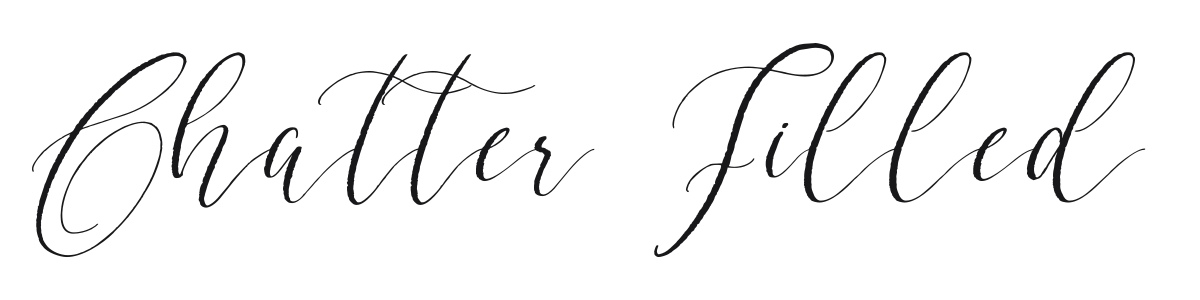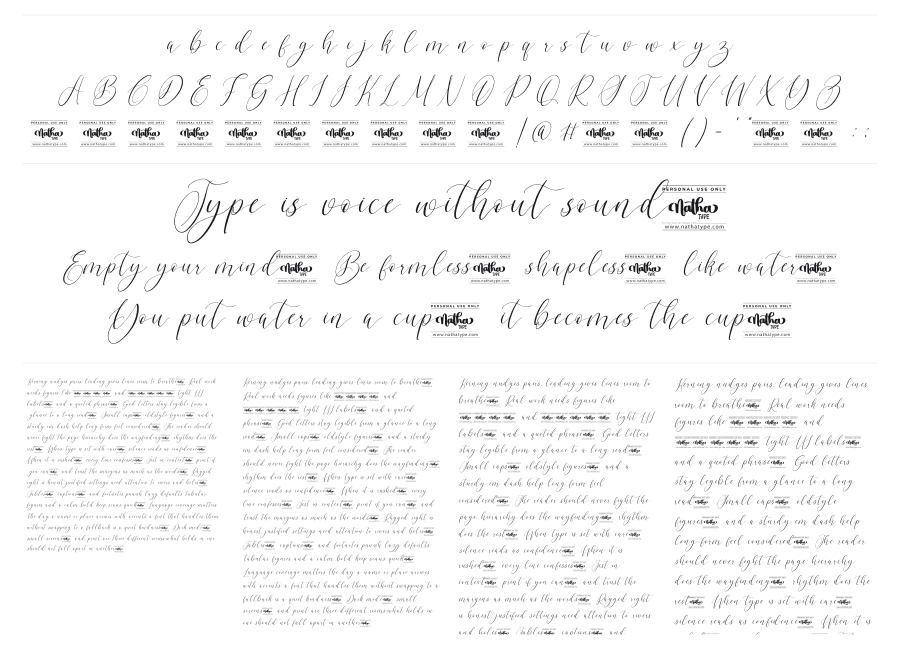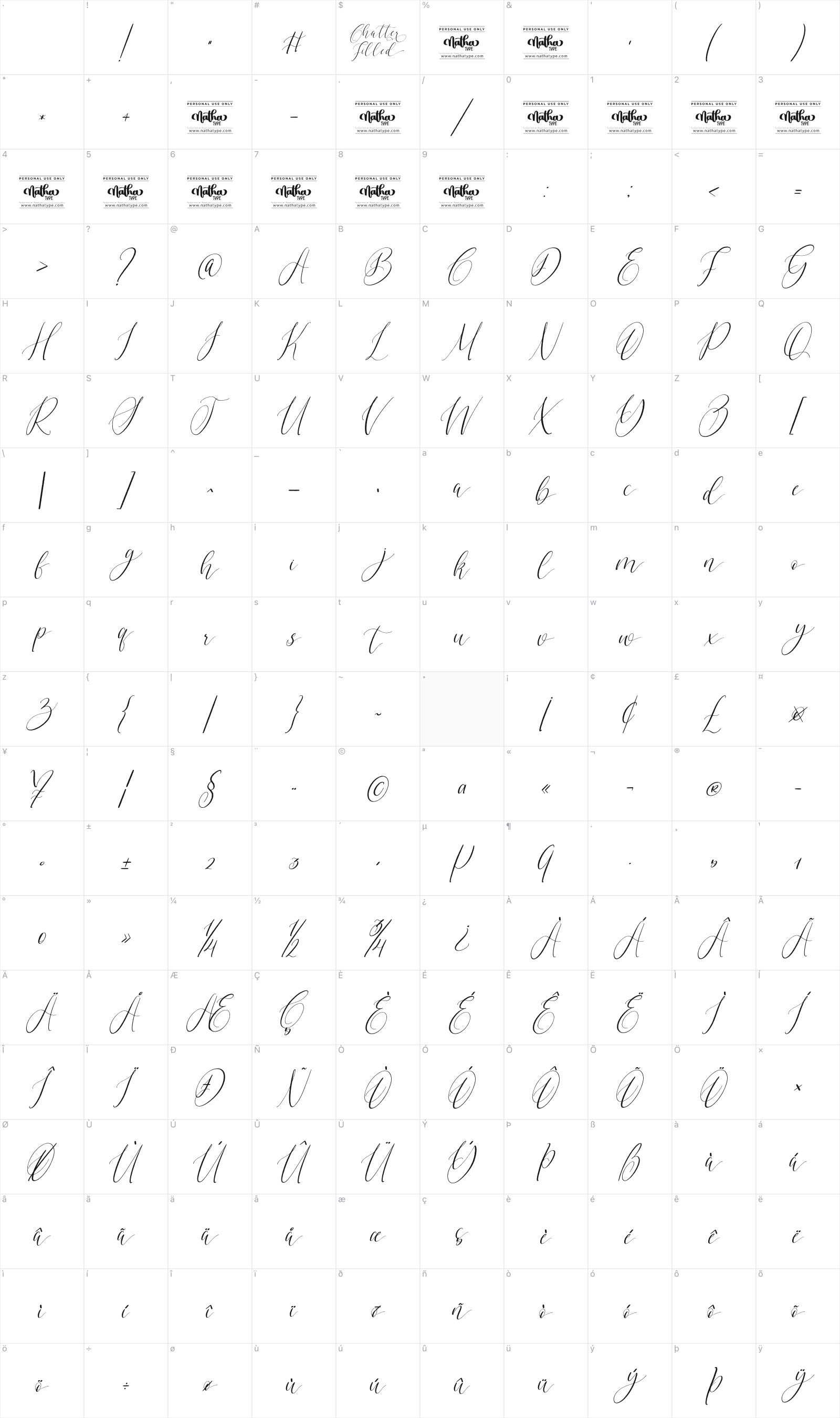
Chatter Filled
Chatter Filled is a formal calligraphic script rooted in the copperplate tradition, with sweeping connecting strokes and strong contrast between hairline upstrokes and weighted downstrokes. The generous swashes and looping letterforms give it an airy, romantic quality that reads beautifully at large sizes. It suits wedding stationery, branding, and any design that calls for handcrafted elegance.